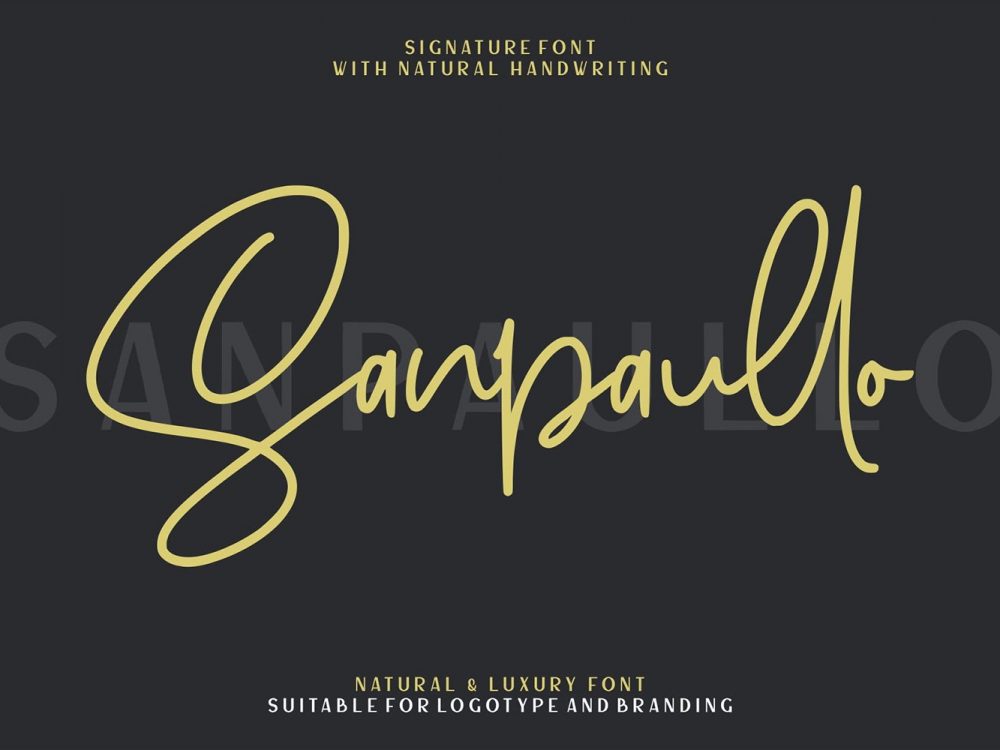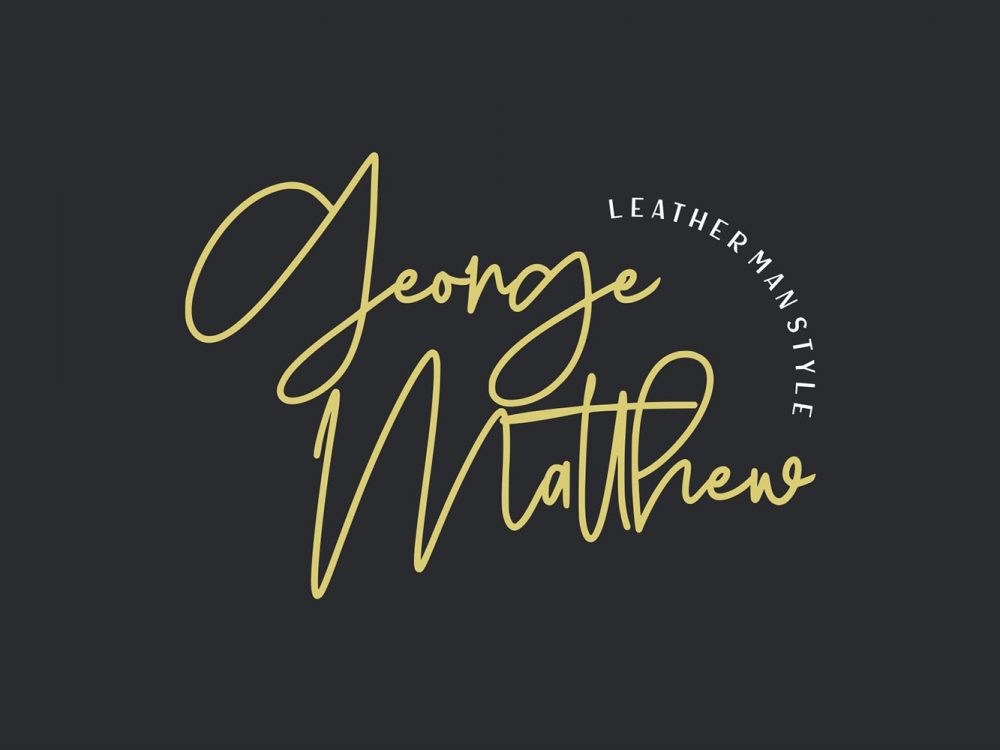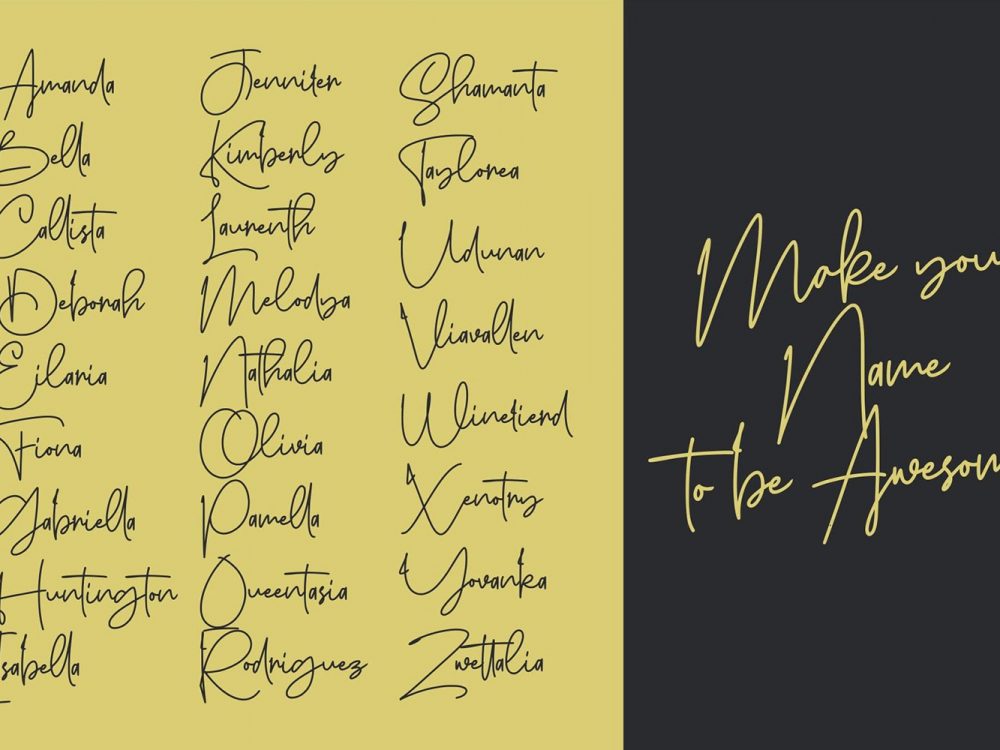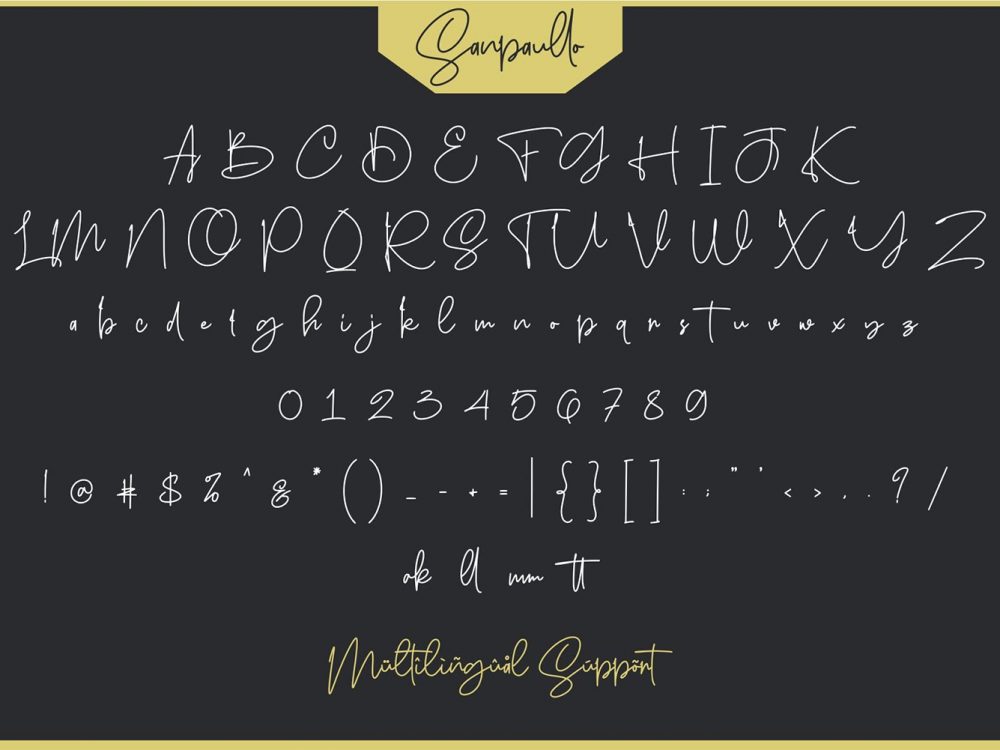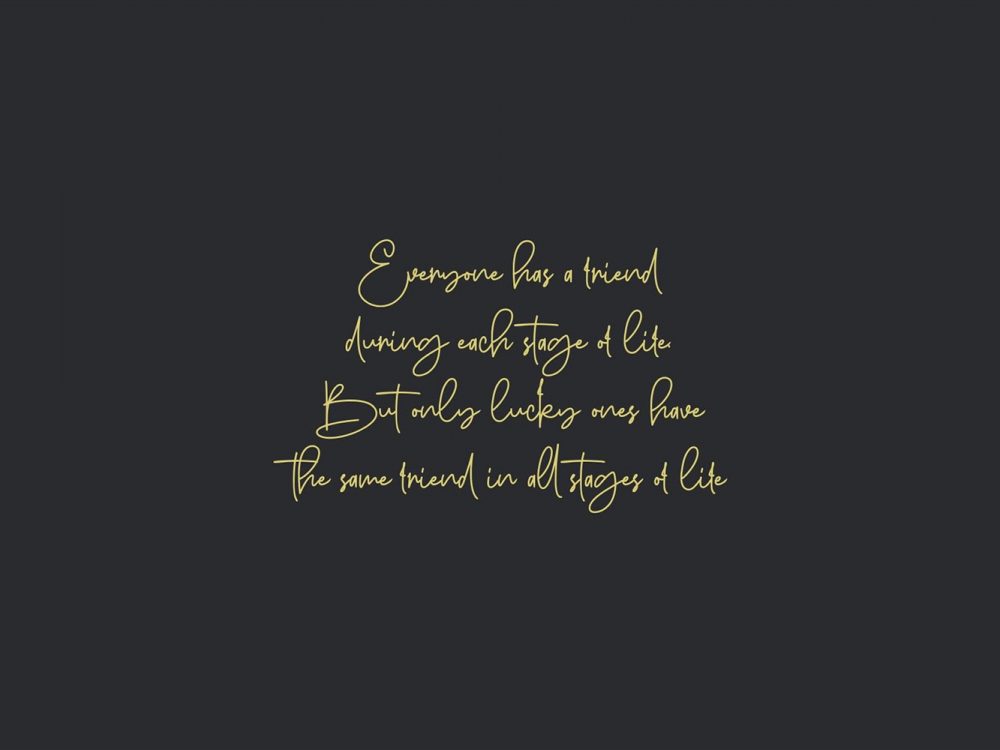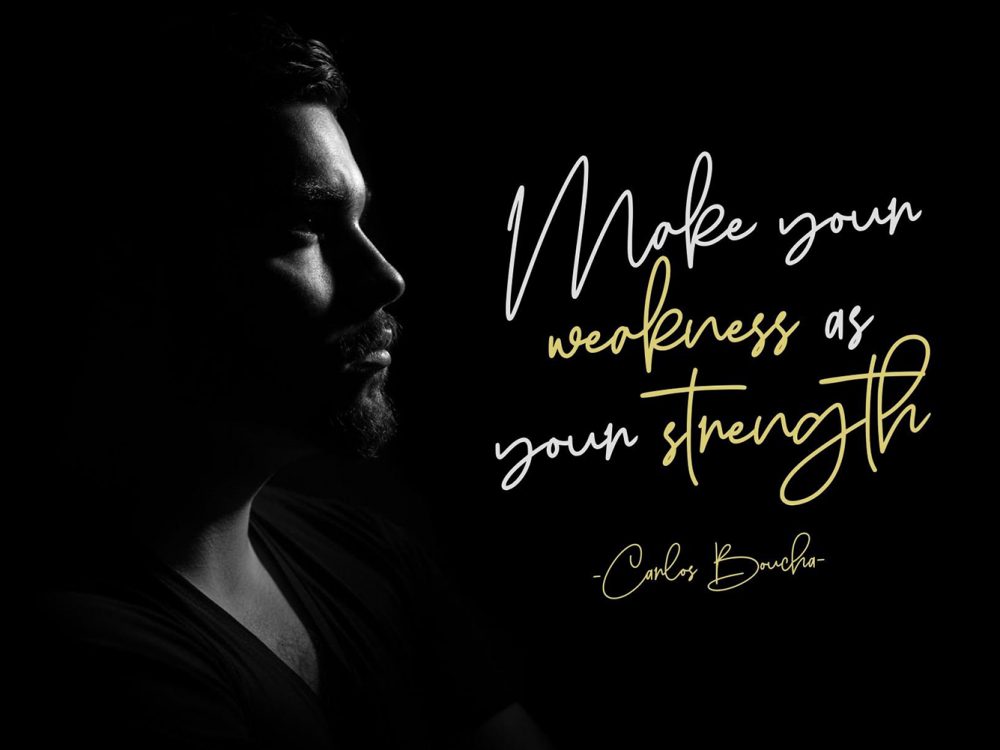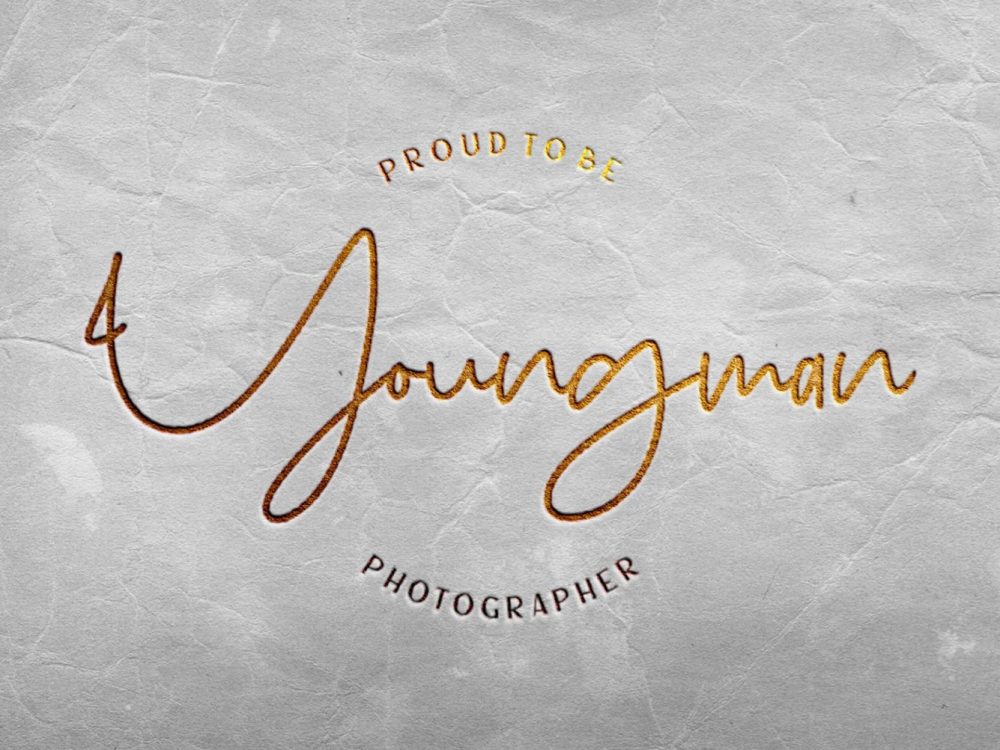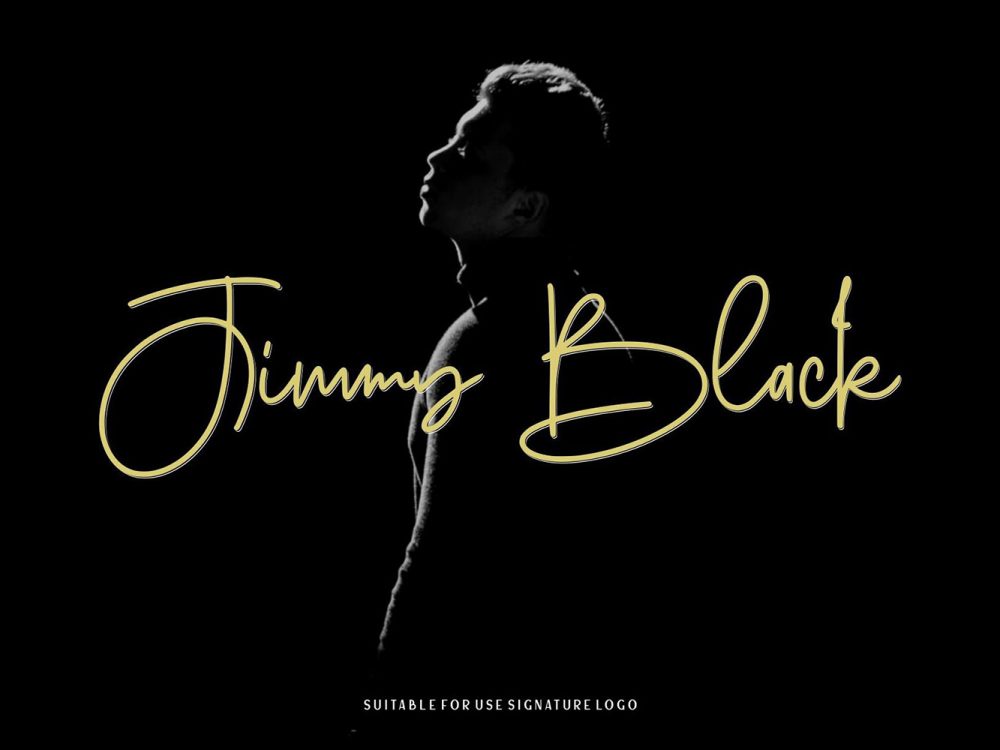
Free Sanpaullo Signature Font
Free Sanpaullo Signature Font is an interesting beautiful handwritten font that is perfect for creating a variety of design projects such as wedding invitations, cards, flyers, logos, prints, and more. Please purchase the full version for commercial use.